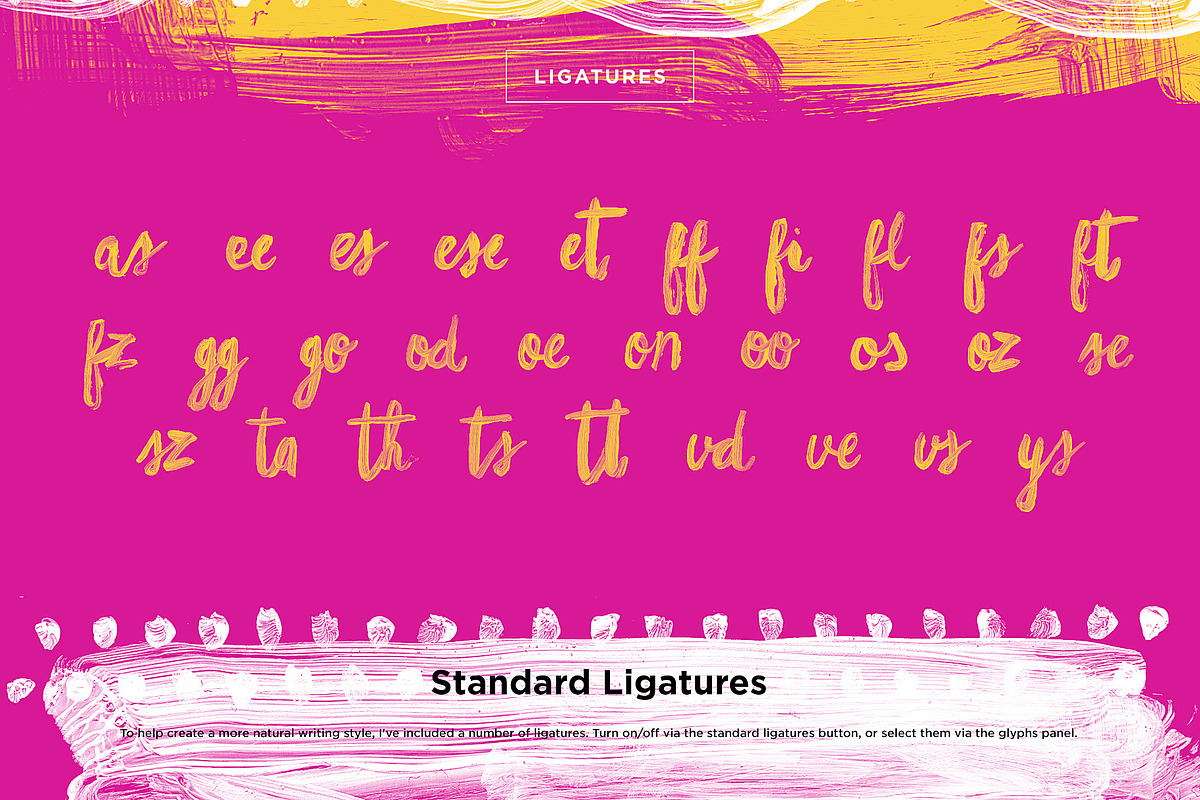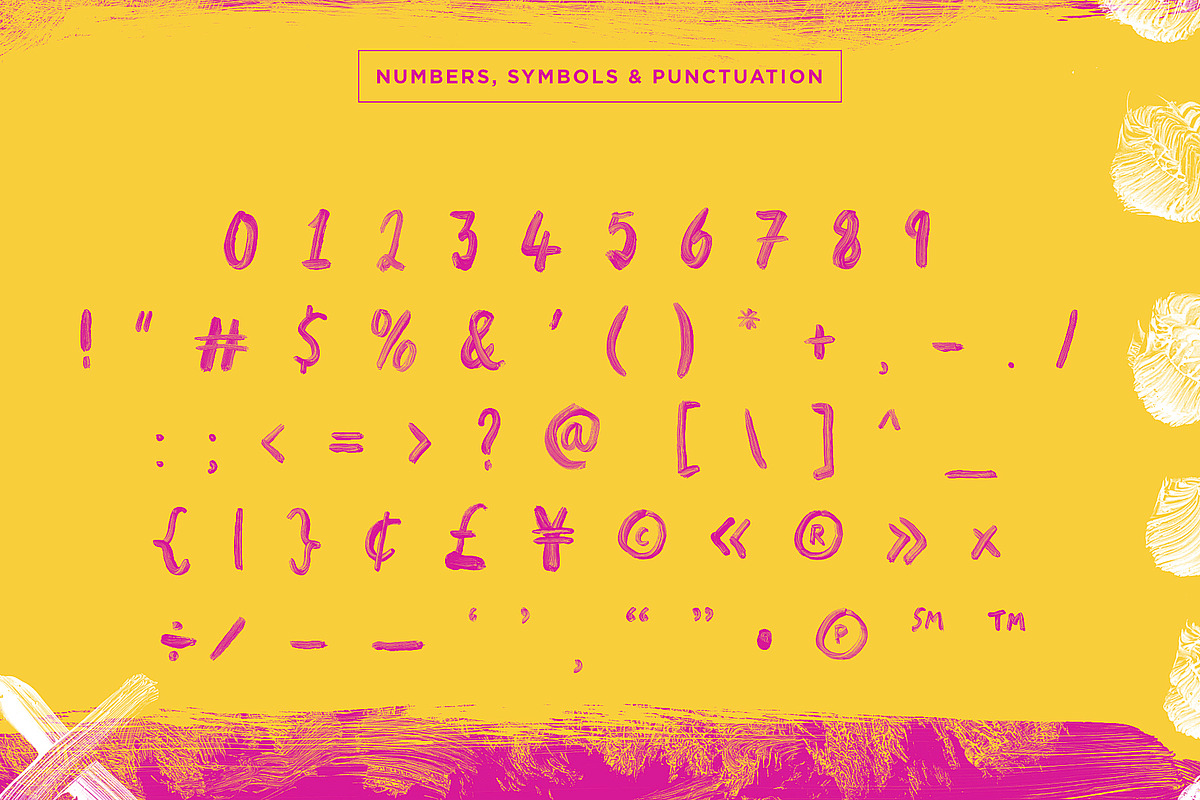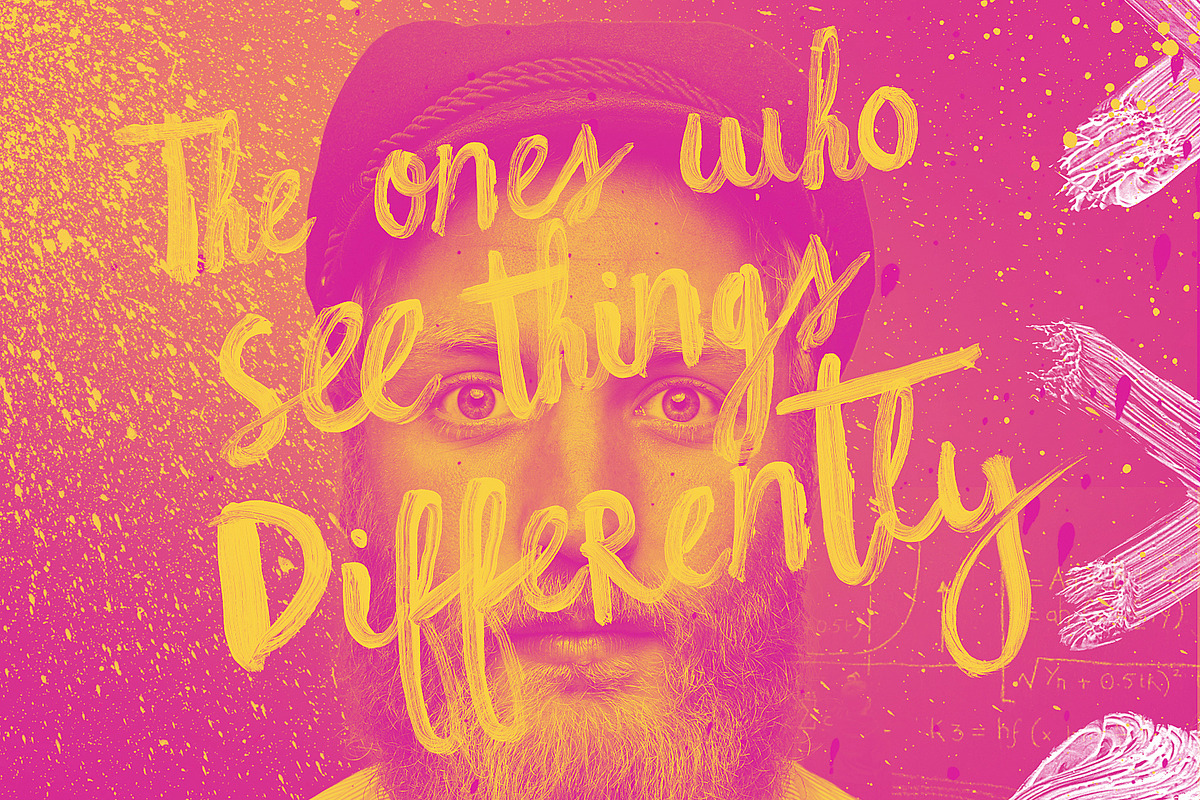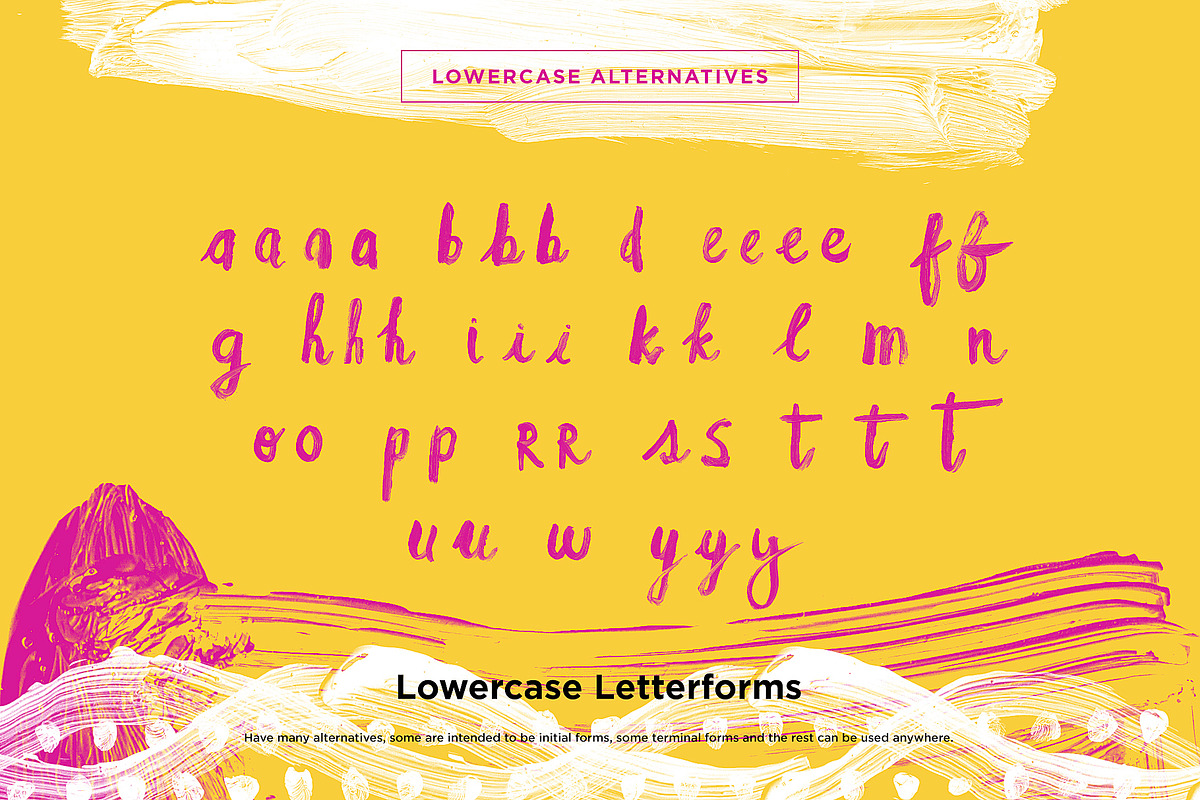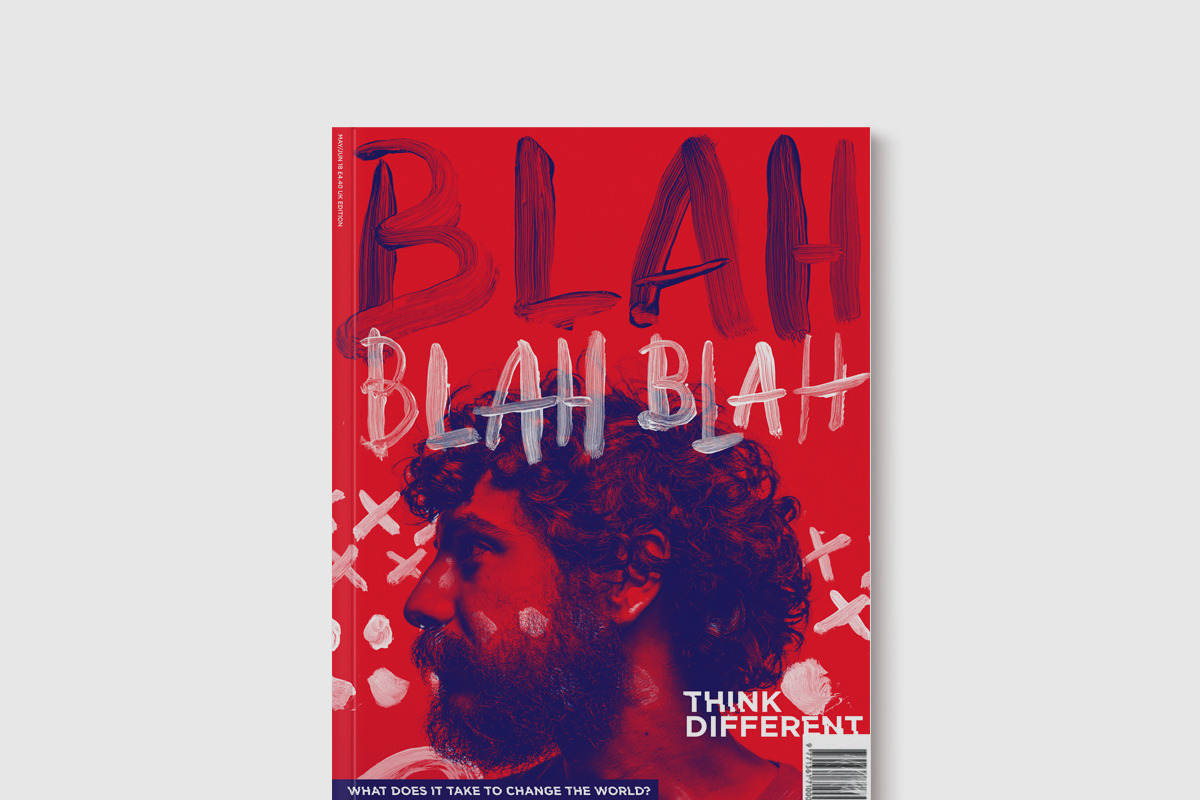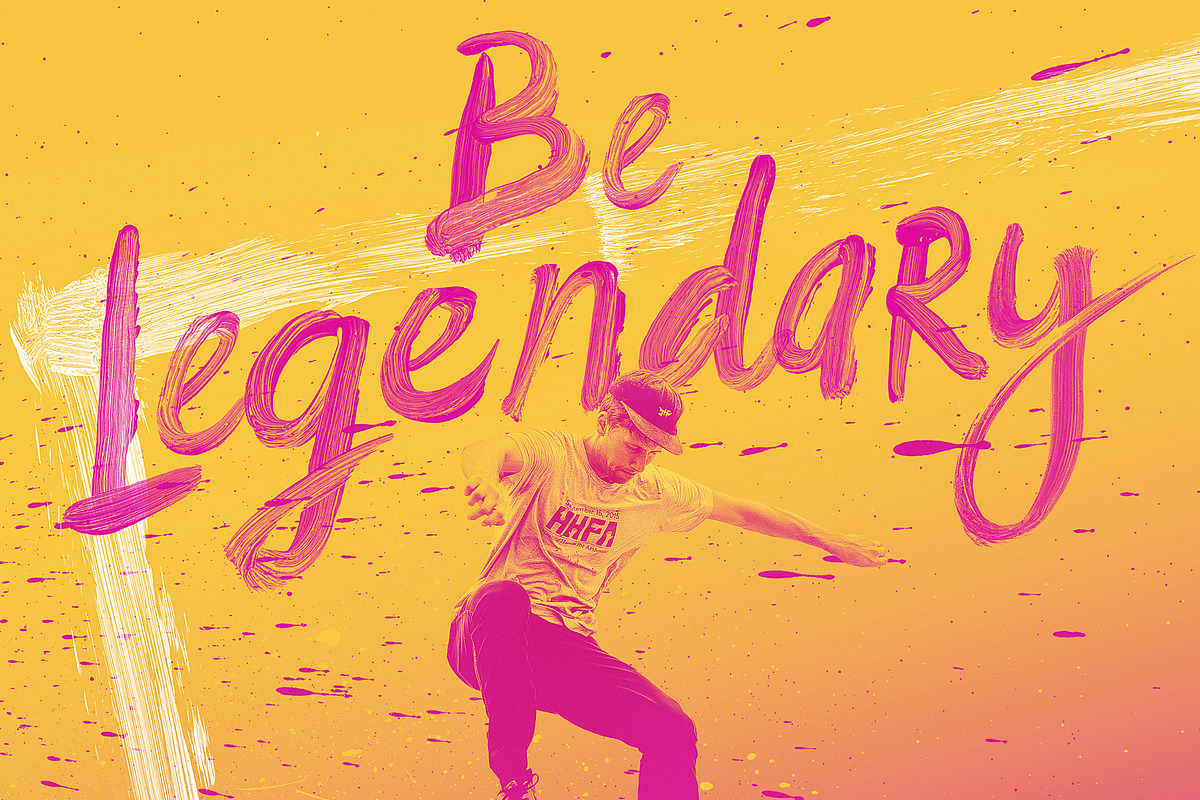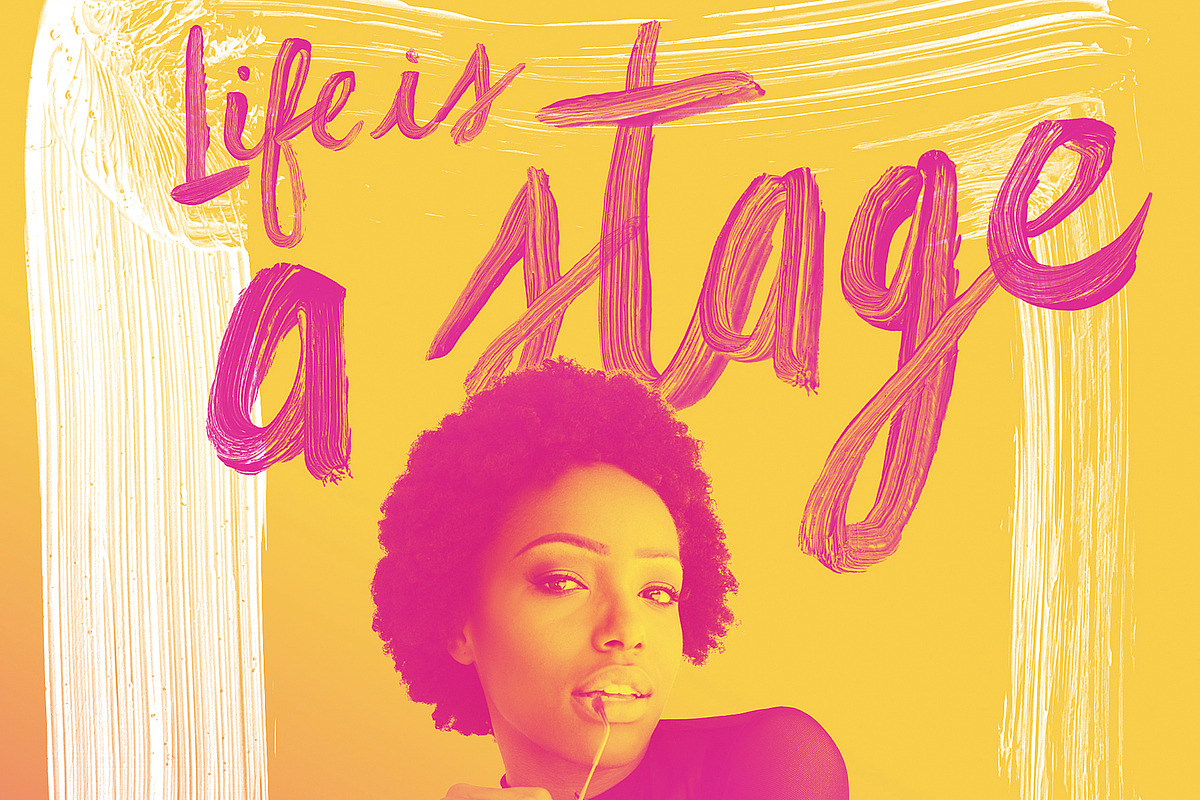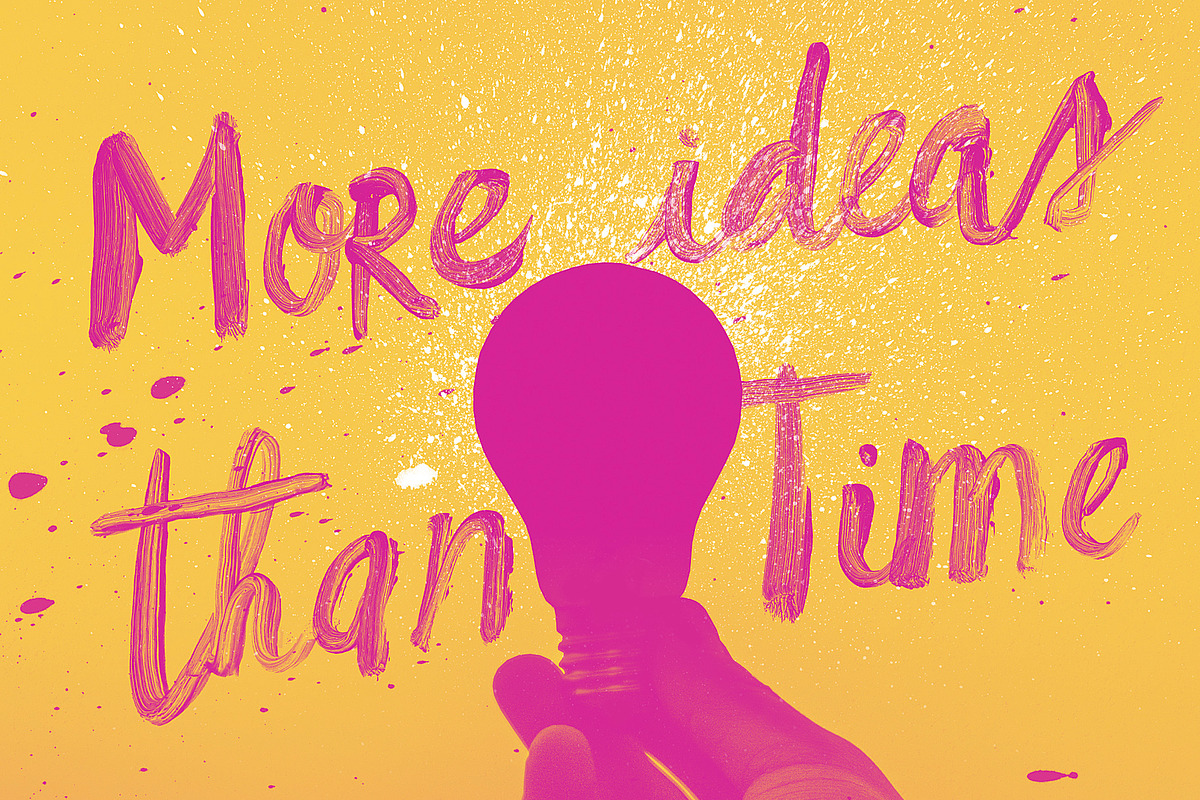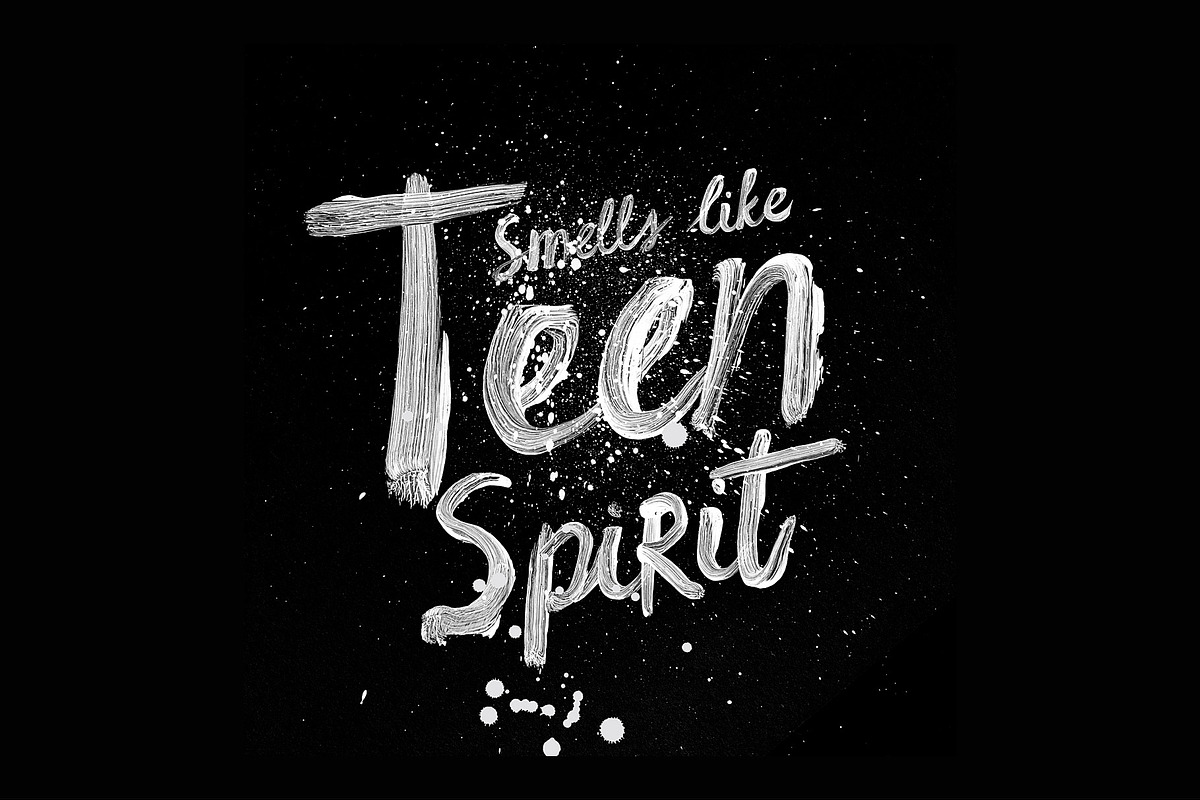
Hello Monday is a handmade brush script font. It has a rough handwriting style with expressive brush marks. It has an energy about it and a kind of urban street style that if used sparingly is hard to ignore.
Hand lettered
Every brush mark has been hand painted with acrylic paint and painstakingly converted to a typeface.
Colour font
The typeface uses a new technology called Opentype-SVG, and Hello Monday is an OpenType-SVG bitmap font. That new technology not only gives you a realistic painted look, it also allows you to change the colour in Photoshop.
Trendy or Hipster
Some might say it’s got a hipster vibe, but I think it’s got a more of a carefree attitude. Nothing is perfect, the marks are dirty and irregular, but that makes it more unique and adds to its attitude.
I think it would be excellent for posters, book covers, wedding invites, cards, food and branding, cosmetics and anything where you want that trendy energetic street style look.
If this font were a celebrity it would be more Tom Hardy than Tom Jones —but it's still a bit of a sex bomb.
Alternative Characters
The font is experimental, so you will have to play with the alternative glyphs and letter spacing. It has many alternatives, for both upper and lowercase glyphs. Lucky for you I've got a tutorial—see below.
Transparency
The brush marks are transparent, to get a stronger, more solid look you can duplicate your type layers in Photoshop—the more you duplicate, the bolder the look.
Apply any Colour
The typeface also only comes in black, but it's straightforward to change in Photoshop. And yes, I have a tutorial for that too.
Hello Monday Font Preview